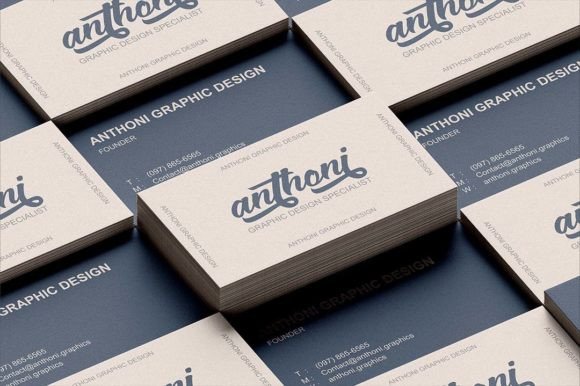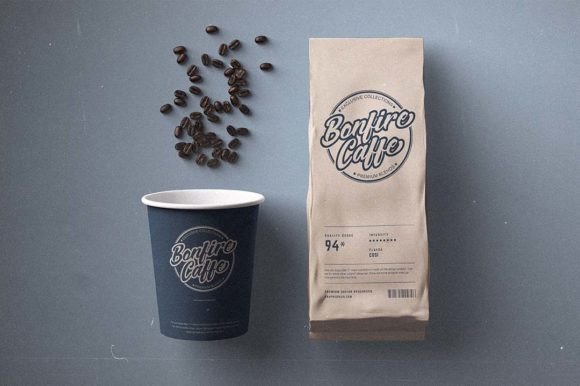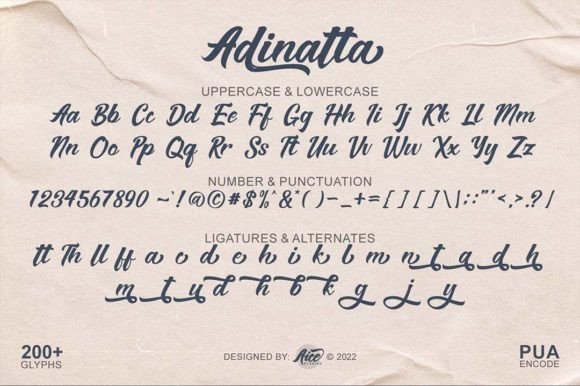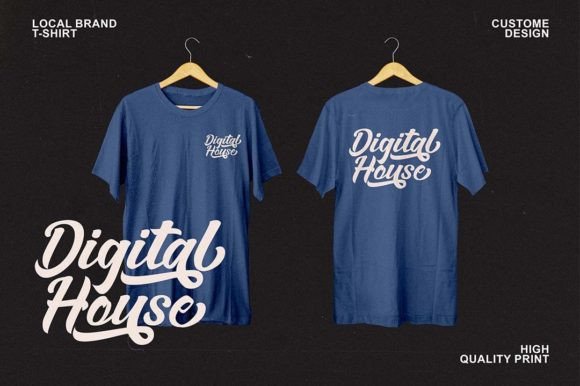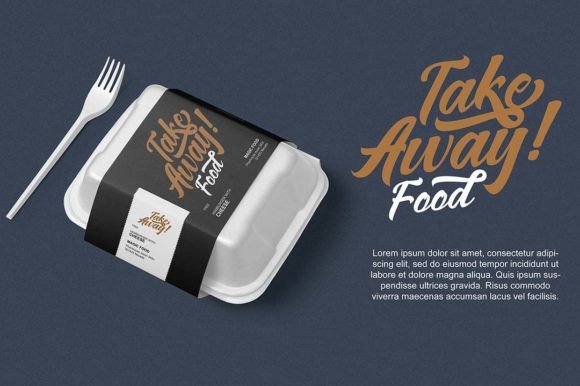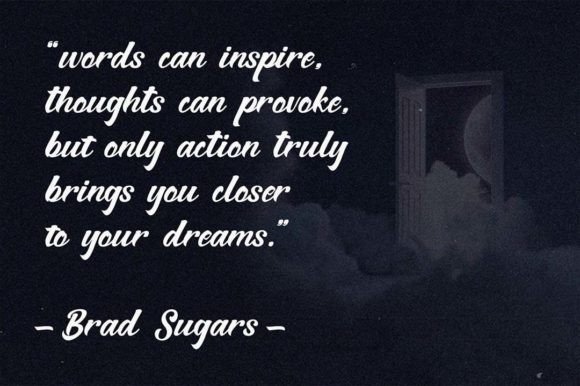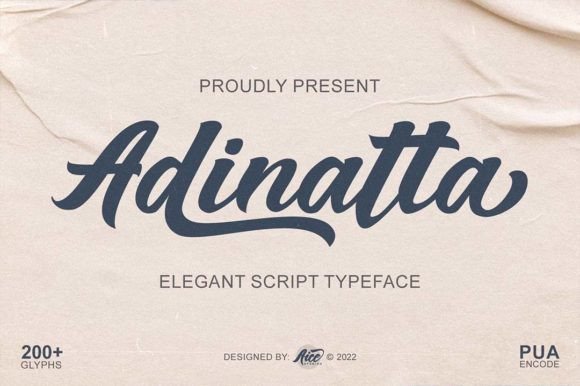
Introducing Adinatta Font: Elevate Your Designs with Elegance and Versatility
In the world of typography, a font can make or break a design. For designers and crafters seeking to add a touch of elegance and modernity to their projects, the Adinatta Font is an exceptional choice. This beautiful, handwritten script font is not only visually stunning but also incredibly versatile, making it perfect for a wide array of applications.
What is Adinatta Font?
Adinatta Font is an elegant handwritten font that boasts a modern style, making it an excellent addition to any designer’s toolkit. Its fluid lines and graceful curves give it a sophisticated look that’s sure to elevate your designs. Whether you’re working on branding, posters, events, logotypes, product packaging, decorations, or even t-shirts, Adinatta Font is up to the task.
Key Features of Adinatta Font
- Elegant Handwritten Style: Adinatta Font features a beautiful, handwritten script that adds a personal and sophisticated touch to any project.
- Modern Aesthetic: With its clean lines and contemporary feel, this font is perfect for designers looking for a modern edge.
- Versatility: From branding and logotypes to posters, events, and product packaging, Adinatta Font’s versatility knows no bounds.
- PUA Encoded: Being PUA (Private Use Area) encoded, Adinatta Font allows easy access to all glyphs and swashes, giving you more creative freedom.
Applications of Adinatta Font
The applications of Adinatta Font are vast and varied. Here are some of the most popular uses:
- Branding: Create a lasting impression with a unique and elegant logotype that sets your brand apart.
- Posters and Flyers: Draw attention with a stylish and readable font that’s sure to capture the audience’s interest.
- Events: Whether it’s a wedding, a conference, or a product launch, Adinatta Font can add a touch of class to your event’s branding materials.
- Product Packaging: Stand out on the shelves with beautifully designed packaging that reflects your brand’s personality.
- T-Shirts and Merchandise: Create stunning apparel and merchandise with a font that looks great in both large and small sizes.
Why Choose Adinatta Font?
With so many fonts available, why should you choose Adinatta Font for your next project? Here are a few compelling reasons:
- Unique Style: Adinatta Font offers a unique and distinctive style that’s not commonly found in other fonts, ensuring your designs stand out.
- Ease of Use: Thanks to its PUA encoding, you can easily access and use all the glyphs and swashes, making the design process smoother and more efficient.
- High Versatility: This font’s adaptability means you can use it across a wide range of projects, making it a valuable addition to your font library.
- Support for Creative Freedom: The inclusion of swashes and glyphs allows for extensive customization, giving you the creative freedom to experiment with different styles and effects.
Adinatta Font is more than just a font; it’s a tool that can transform your designs, adding a layer of elegance and sophistication that’s hard to achieve with standard typefaces. Its modern style, versatility, and ease of use make it an excellent choice for designers and crafters looking to elevate their projects. Whether you’re creating branding materials, event invites, product packaging, or merchandise, Adinatta Font is sure to deliver stunning results. So, why settle for ordinary when you can create something extraordinary with Adinatta Font?